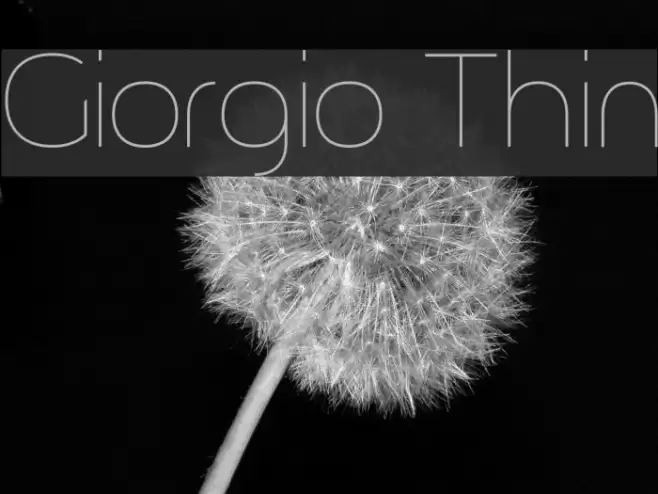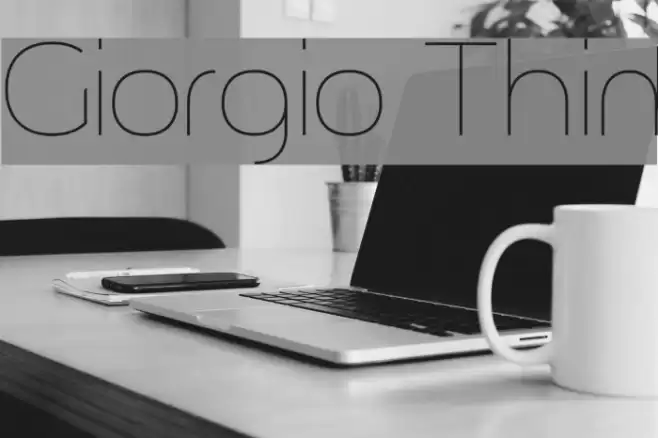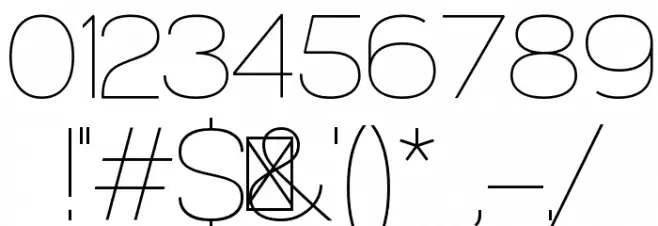
Giorgio Thin Font
Giorgio Thin Description
This font features a sleek and modern design with thin, elegant lines that create a minimalist aesthetic. The characters are evenly spaced, contributing to a clean and airy appearance. The uppercase and lowercase letters maintain a consistent style, with rounded edges and smooth curves that enhance readability. The numerals and special characters follow the same design principles, ensuring uniformity across all glyphs. This font's simplicity and sophistication make it versatile for various design applications.
- Proposed Projects: Ideal for modern branding, minimalist posters, elegant invitations, and clean website designs.
- Use Case: Headlines, Logos, Body text